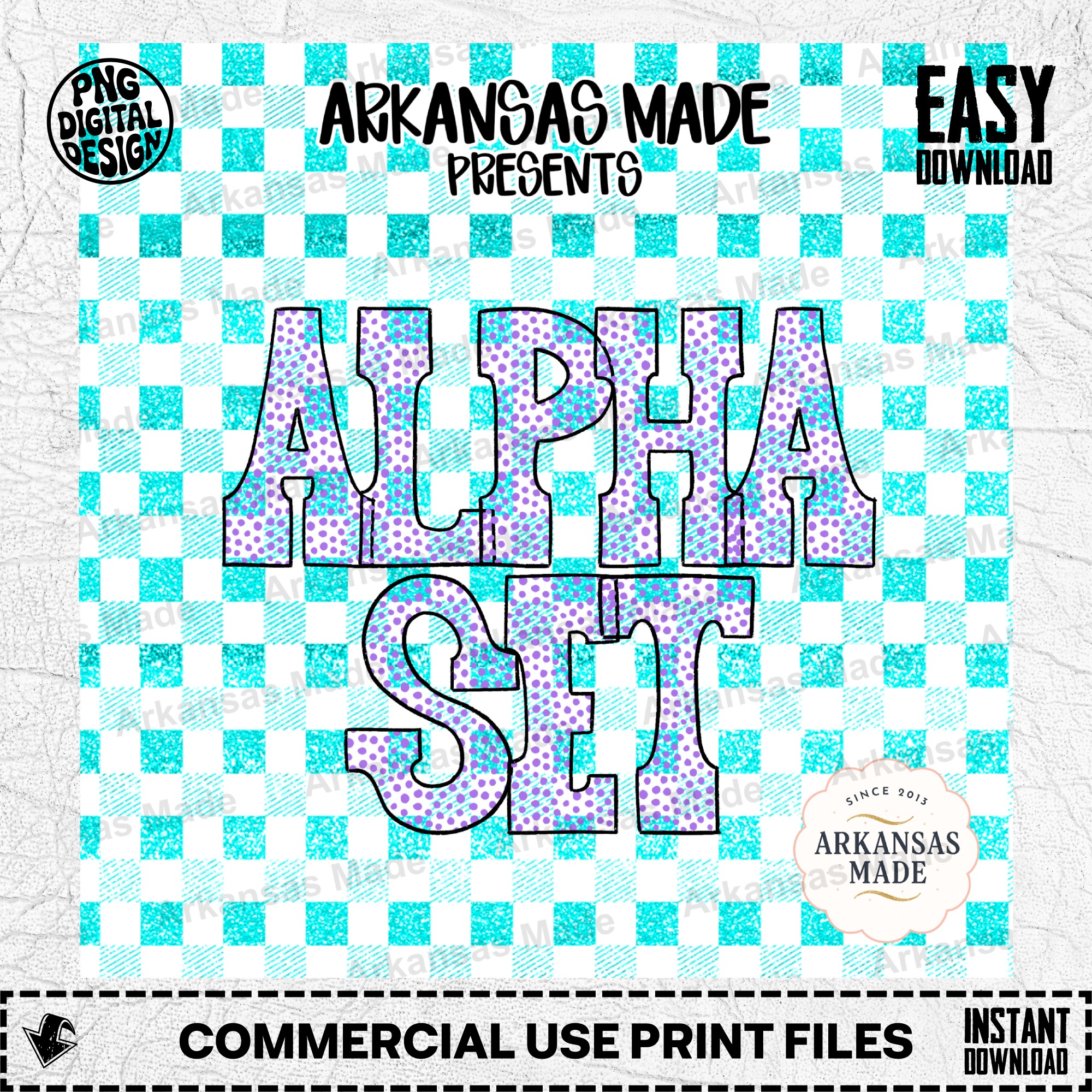
Polka Dot Alpha PNG Set | Cute Purple Letters Digital Alphabet | Instant Download Sublimation Font for Crafts & Designs
Add a pop of fun to your designs with this Polka Dot Alpha PNG Set! Get instant access to cute purple letter digital alphabet for all your creative projects. This playful letter bundle features charming purple polka dots, perfect for crafters, teachers, and DIY enthusiasts. Ideal for custom t-shirts, personalized gifts, party decor, or any digital art requiring a vibrant and unique touch. Elevate your creations with these versatile digital elements.